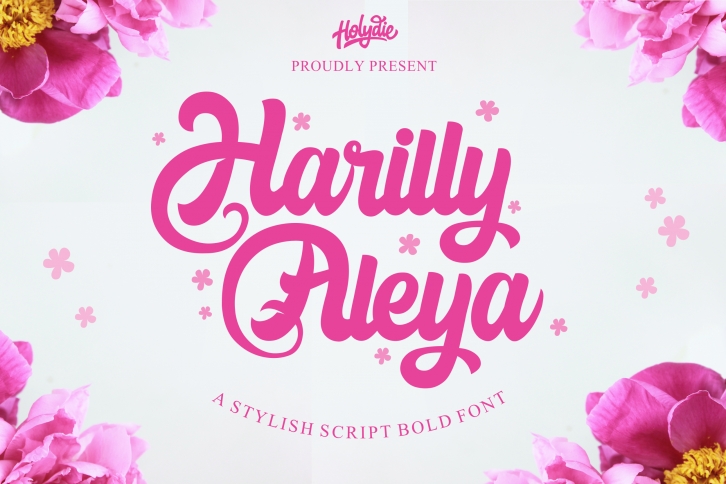
Harilly Aleya is a beautiful font that was designed by Holydie Studio. It's a great choice for designers and creatives who need such a font. It was released on July 5, 2019 and the file size is 20.4 MB. Harilly Aleya may give a more youthful, expressive and casual look to your project. It is a very beautiful, refined, elegant, and high-quality font.